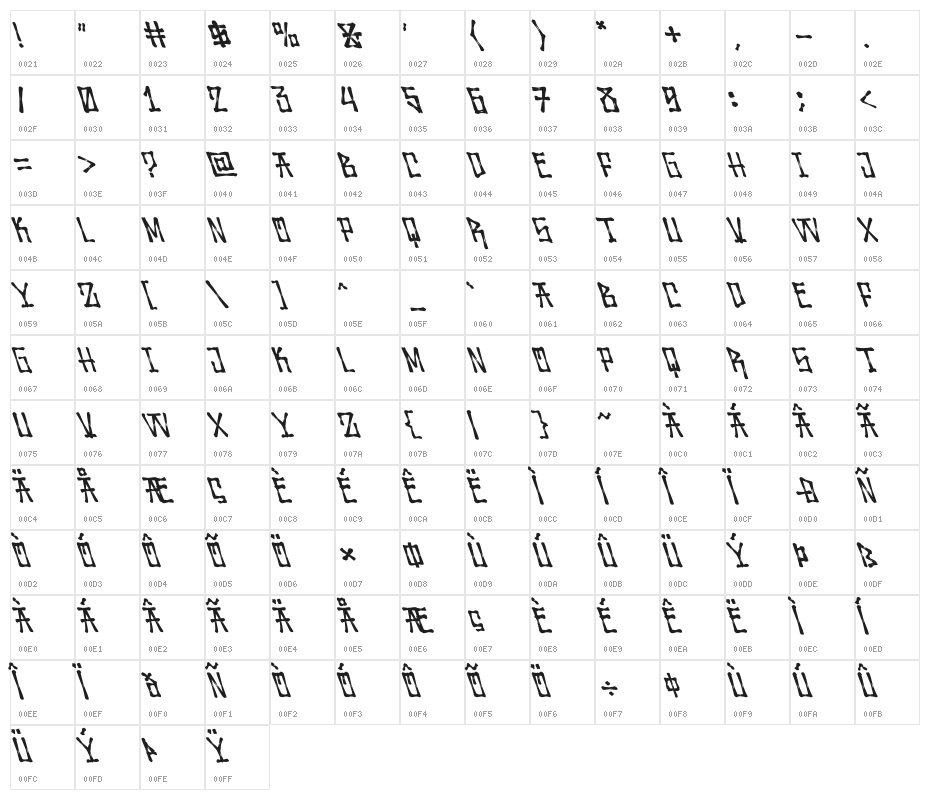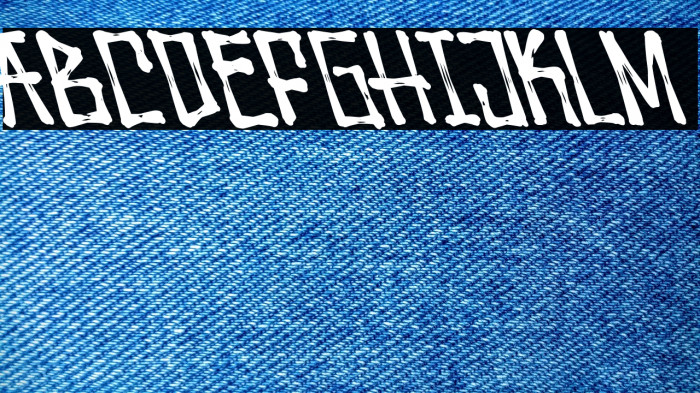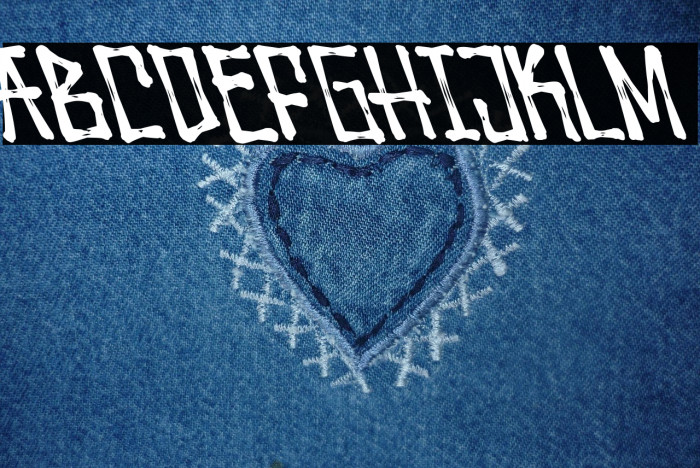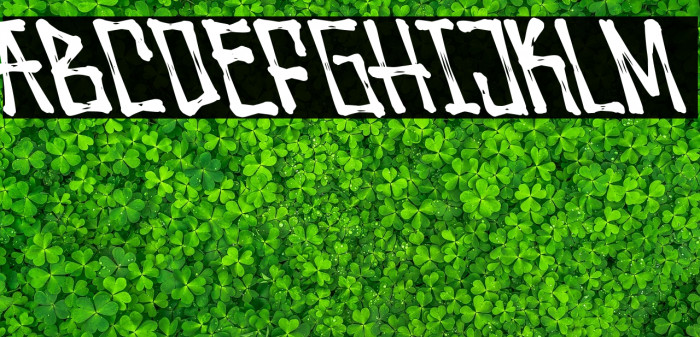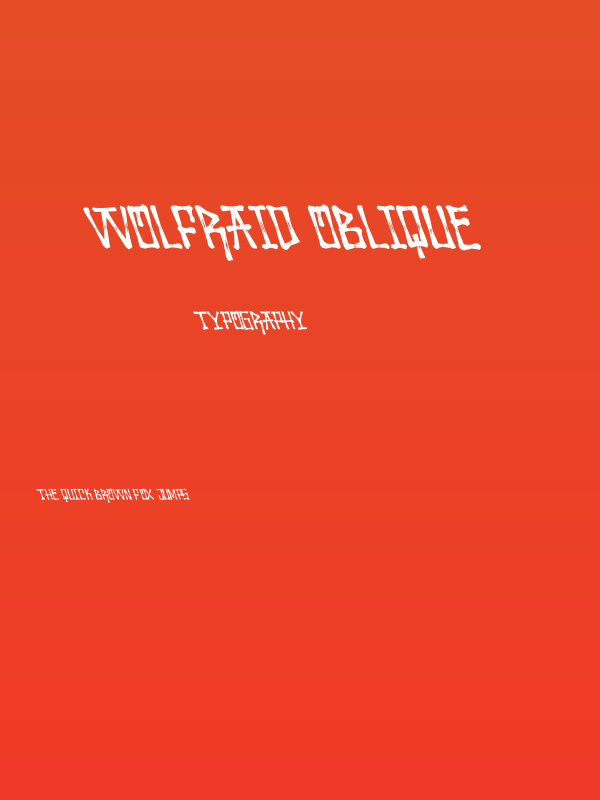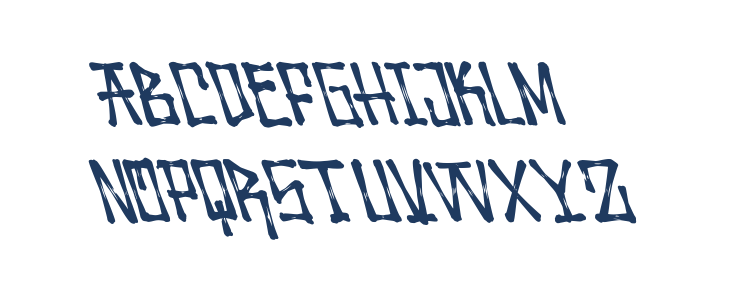
Wolfraid Oblique Font
Wolfraid Oblique Description
This font features a bold, dynamic style with an oblique orientation, giving it a sense of movement and energy. The characters are crafted with a rough, hand-drawn appearance, adding a raw and edgy feel. The strokes are uneven, with varying thickness that creates a high contrast between the thick and thin parts of each letter. This font's unique style makes it stand out, with a slightly aggressive and rebellious tone. It is well-suited for projects that require a strong visual impact and a modern, unconventional look.
| Overall Style | Modern, Edgy |
| Proposed Projects | Ideal for music album covers, posters, branding for edgy or alternative products, and any design needing a bold statement. |